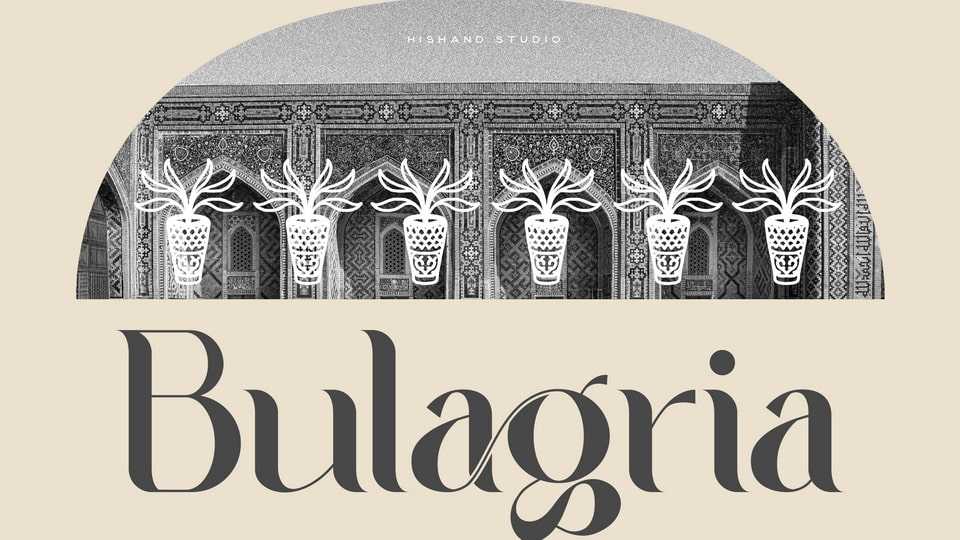
Download Bulagria font, a beautifully crafted serif display typeface, blending modern elegance with a touch of tradition, perfect for creating standout designs.